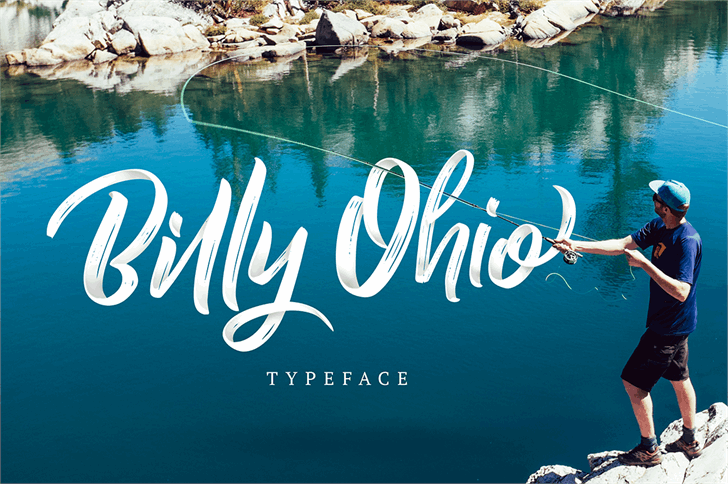
Billy Ohio Brush Font
You’ll recognize the wonderful and exciting with this typeface, which is perfection in every handbrush. Introducing Billy Ohio Brush Font! Billy Ohio the Brush was designed by alit design. Billy Ohio is which has a fast dry brush style. So it looks natural like a handmade. This font is best used for your design project that has the concept of fun, brave and sporty. Can also be applied to the design of a logotype, header website, make some lettering a quote, t-shirt design etc.